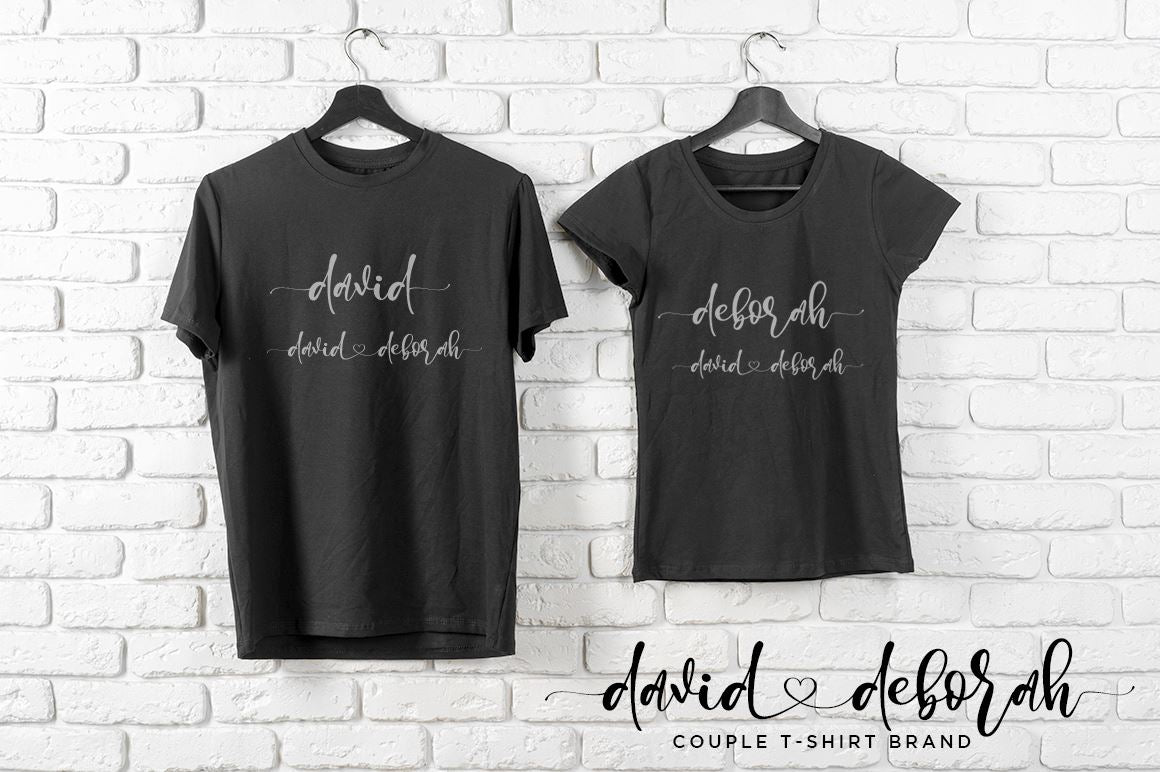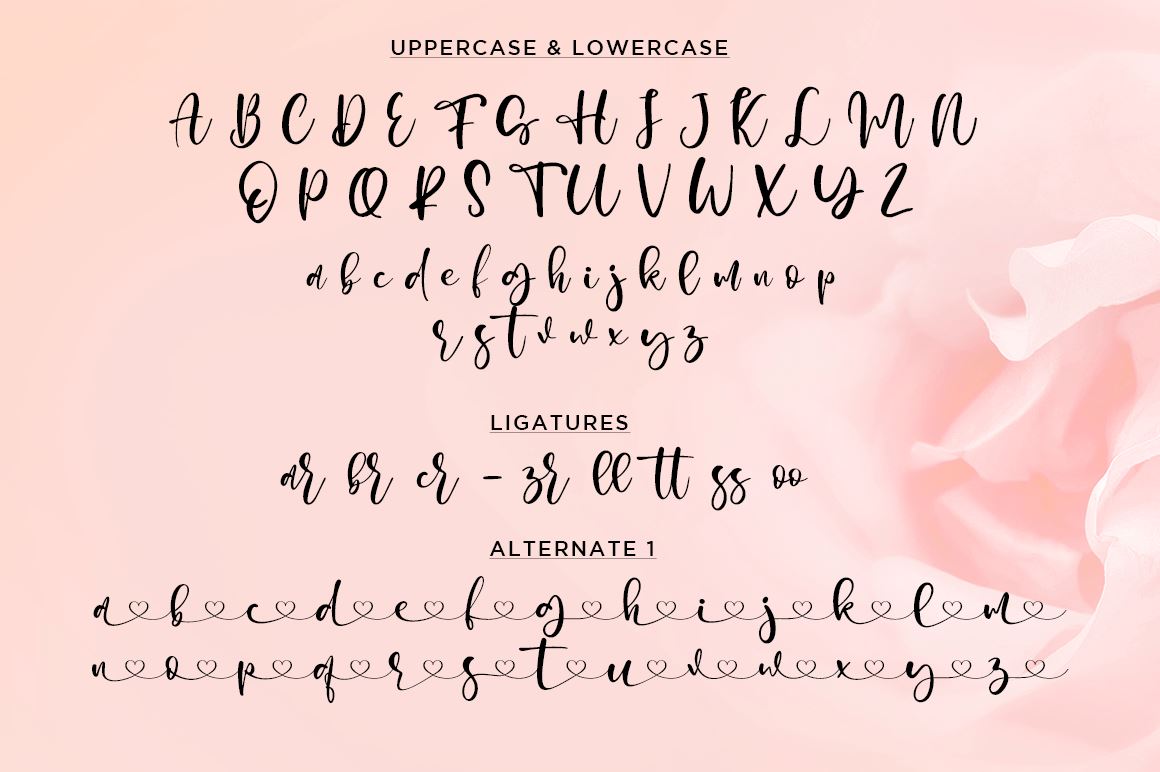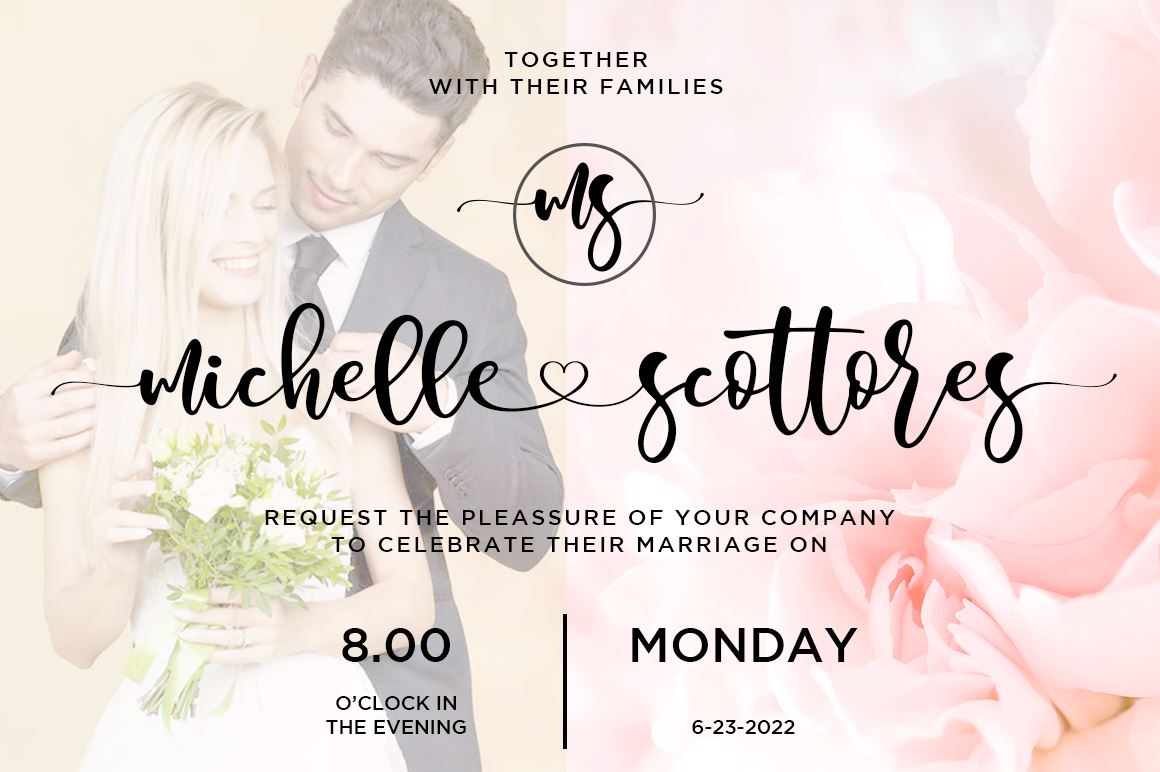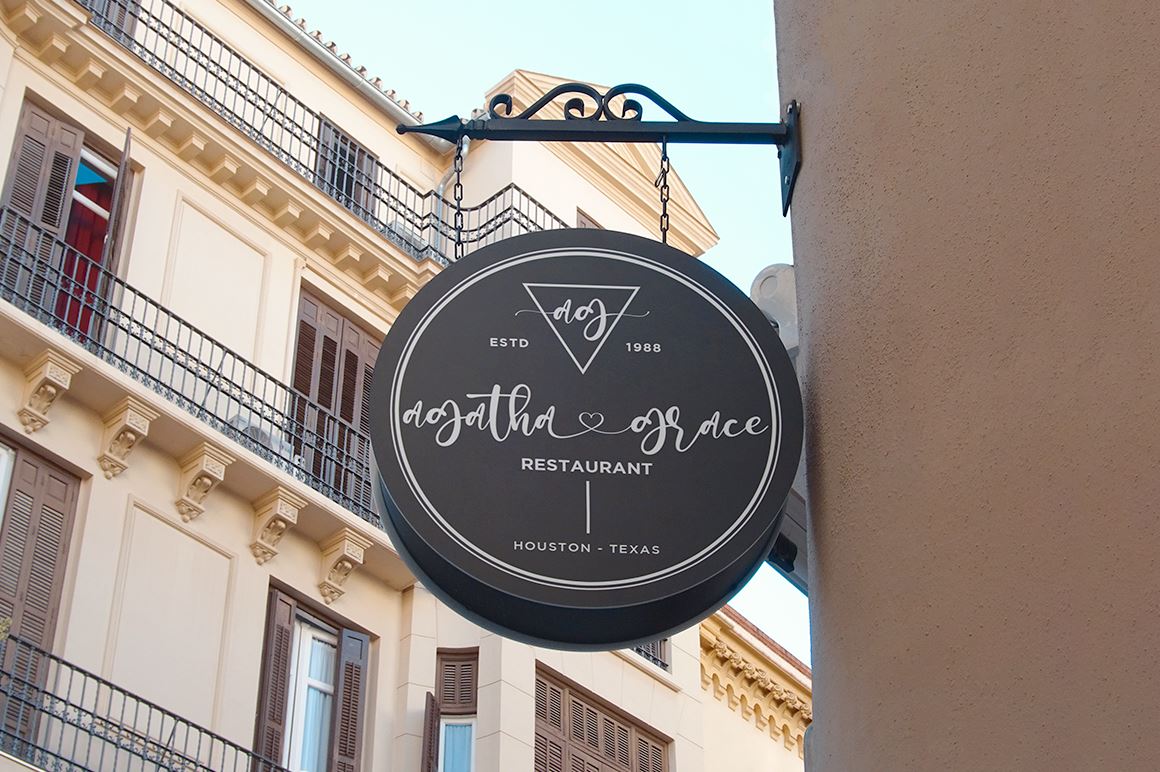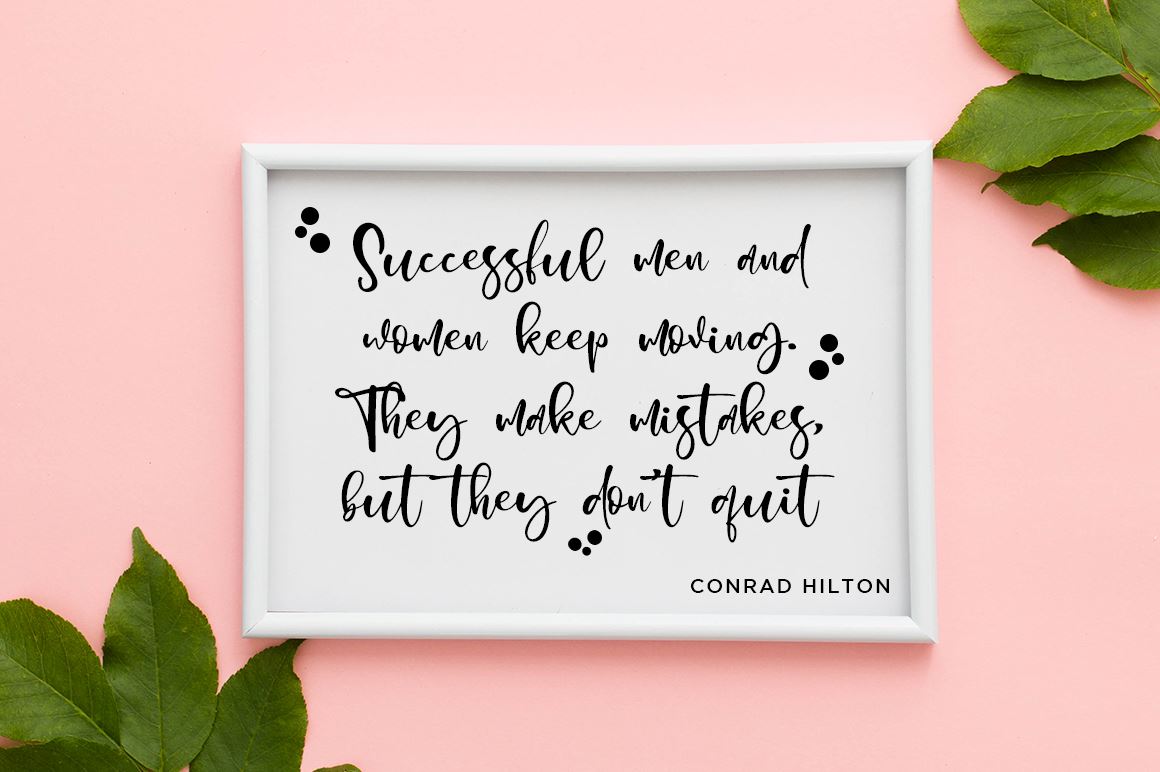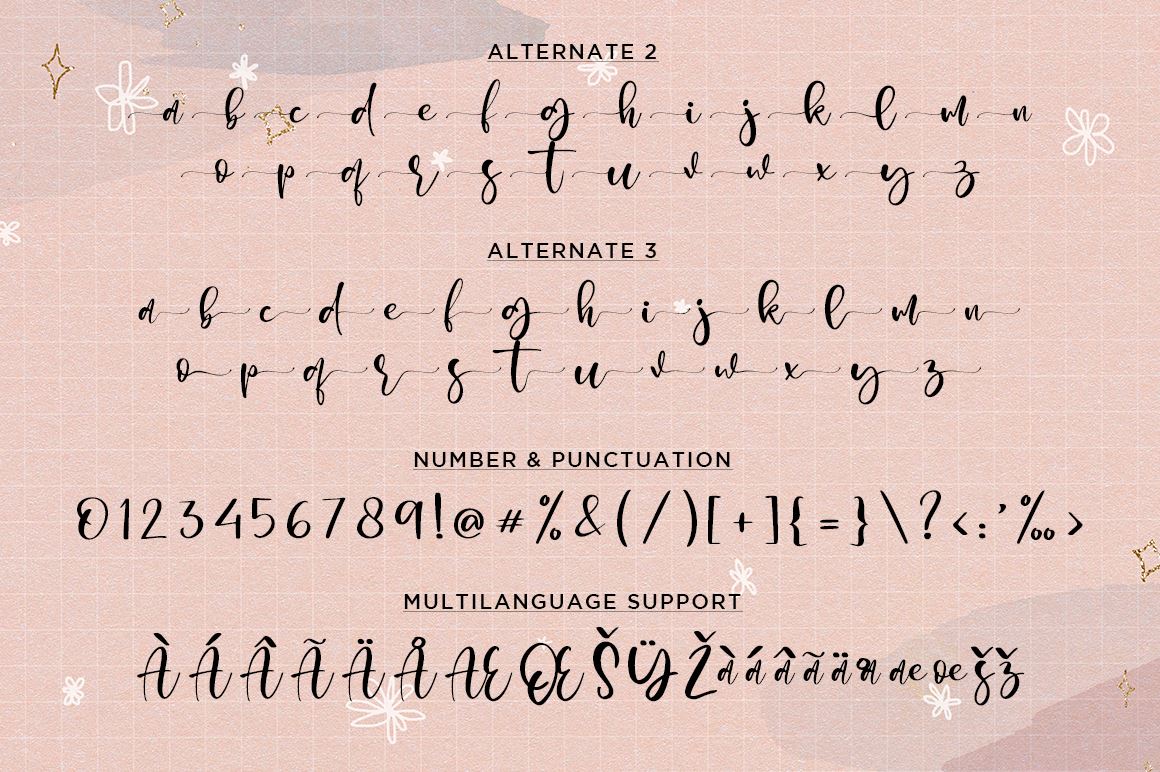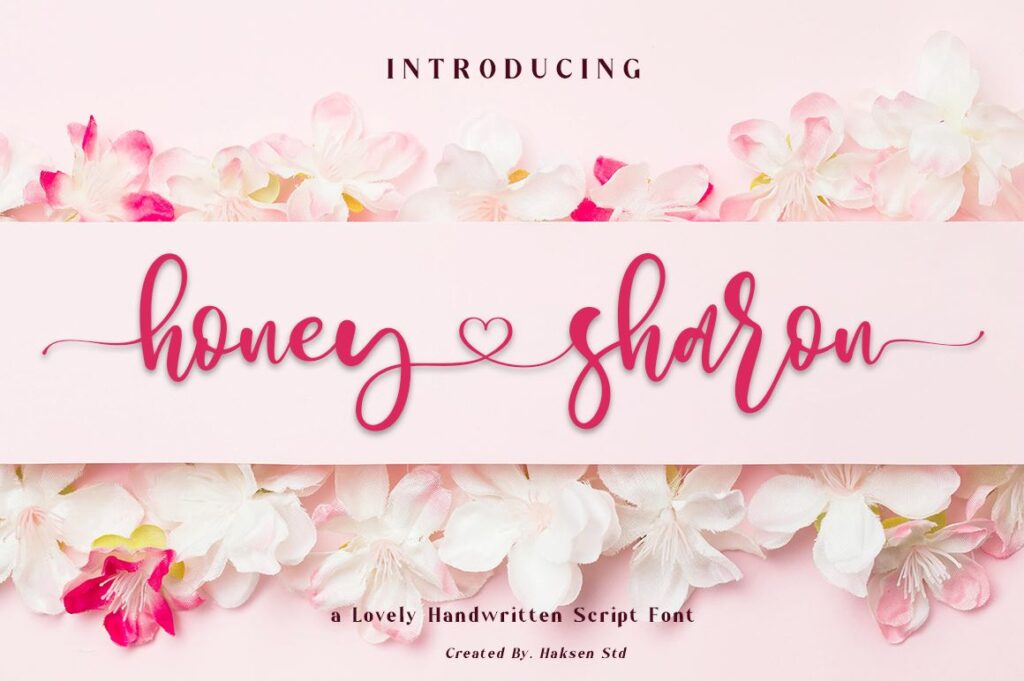
Honey Sharon Lovely Handwritten Script
About Honey Sharon Lovely Handwritten Script
Honey Sharon is a stylish modern handwritten script font with casual chic flair. It is perfect for branding, signature, wedding invitation, promotion, product packaging, and other needs. You will get full set of lowercase and uppercase letters, numerals and punctuation, multilingual symbols, lowercase beginning and ending swashes, ligatures and extra swashes that giving realistic hand-lettered style. What’s including files purchased? You will get : Honey Sharon TTF OTF Honey Sharon Alt 1 TTF OTF Honey Sharon Alt 2 TTF OTF Honey Sharon Alt 3 TTF OTF In order to use the beautiful swashes, you need a program that supports OpenType features such as Adobe Illustrator, Adobe Photoshop, Adobe Indesign and Corel Draw. But if your software doesn’t have Glyphs panel, I made it into 2 files to make it easier to use for beginner. Those are Honey Sharon Alt 1, Honey Sharon Alt 2 and Honey Sharon Alt 3 . So please use those files to get it. Thanks and have a wonderful day, Haksen Std